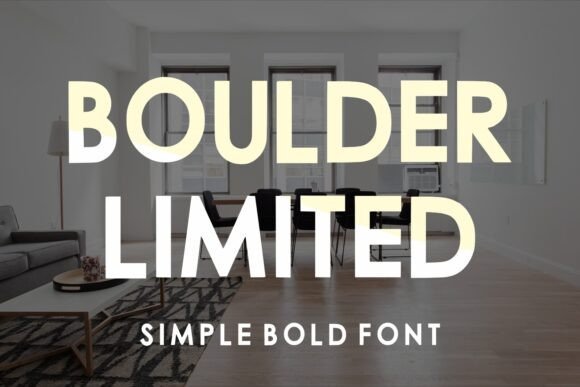
The Perfect Font for a Bold Statement
Have you ever found yourself staring at a blank canvas, desperately searching for the right font to bring your design to life? I know I have. As a designer, I’ve spent countless hours scrolling through font libraries, trying to find that one perfect combination of style and functionality. And then, it happened – I stumbled upon the Boulder Limited Font.
This bold sans serif font is more than just a pretty face; it’s a powerful tool that can elevate your designs and leave a lasting impression. With its clean, straight lines and geometric shapes, the Boulder Limited Font exudes a sense of strength and confidence that’s hard to ignore. Whether you’re designing a logo, a brochure, or a website, this font is sure to make your message stand out.
For designers, the Boulder Limited Font is a valuable addition to any toolkit. Its consistent stroke weight and letter spacing make it easy to read at any size, ensuring that your message is clear and concise every time. So why settle for a font that’s just okay, when you can make a bold statement with the Boulder Limited Font?
Boulder Limited Font Key Features
- Font Family: Boulder Limited Font offers a unique, modern sans-serif font family with 4 styles (Regular, Italic, Bold, and Bold Italic) designed to provide a clean and sophisticated look for various applications.
- Character Set: The font supports a wide range of languages, including Latin, Cyrillic, and Greek alphabets, as well as various symbols and punctuation marks.
- Unique Characteristics: Boulder Limited Font features a distinctive, geometric design with clean lines and subtle rounded edges, making it ideal for use in modern branding, advertising, and digital media.
Boulder Limited Font Review
The Boulder Limited Font is a modern sans-serif font designed with simplicity and elegance in mind. Here’s my honest review of this font.
- The clean and minimalist design makes it perfect for corporate branding, digital signage, and editorial content.
- The font’s high x-height ensures readability even at small font sizes, making it ideal for digital use.
- The font family includes multiple weights, from light to bold, offering flexibility for various design needs.
- The font lacks personality and uniqueness, making it blend in with other sans-serif fonts.
- The italics and bold weights can appear slightly inconsistent in terms of design and spacing.
- The font may not be suitable for creative or artistic projects that require a more expressive font.
Overall, the Boulder Limited Font is a solid, dependable choice for designers who prioritize simplicity and readability. While it may not stand out from the crowd, it’s a reliable option for a wide range of design applications.